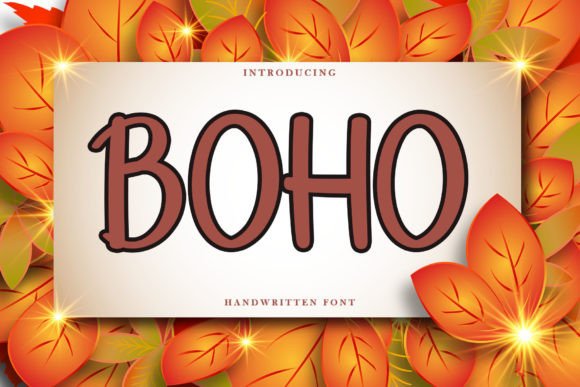
The Boho Font: A Timeless Choice for Creative Projects
I’ll never forget the time I was working on a branding project for a trendy boutique, and I just couldn’t find the perfect font. The client wanted something that was both elegant and laid-back, but everything I tried seemed to lean too far in one direction or the other. That’s when I stumbled upon the Boho font, a classic and simple handwritten script that has since become a staple in my design toolkit.
An Honest Review of Boho Font
• ✨ Versatility: Boho is suitable for a wide range of projects, from logotypes and headlines to apparel and posters.
• ✅ Ease of use: This font is incredibly easy to read and works well in both digital and print formats.
• 💫 Aesthetic appeal: Boho has a unique, handcrafted feel that adds a touch of personality to any design.
While Boho is an excellent font, it’s not without its quirks. For example:
• 🤔 Limited formal applications: Boho’s casual, handwritten style may not be the best fit for very formal or corporate projects.
• ⚠️ Glyph limitations: As with any font, there may be limitations to the number of glyphs available, which could impact its use in certain languages or design applications.
The Backstory of Boho Font
While the origins of Boho are unclear, it’s easy to imagine that it was created by a designer who wanted to capture the essence of a carefree, bohemian lifestyle. Perhaps they were inspired by the vibrant colors and eclectic patterns of a vintage textile market, or the laid-back vibe of a sunny afternoon spent lounging in a hammock.
Q: What is the Boho font, and what is it used for?
A: Boho is a classic and simple handwritten script font, suitable for a wide range of creative projects, including logotypes, headlines, apparel, posters, and more.
Q: What are some common design applications for Boho?
A: Boho is commonly used in design applications such as branding, advertising, packaging, and digital media, including YouTube, Instagram, and websites.